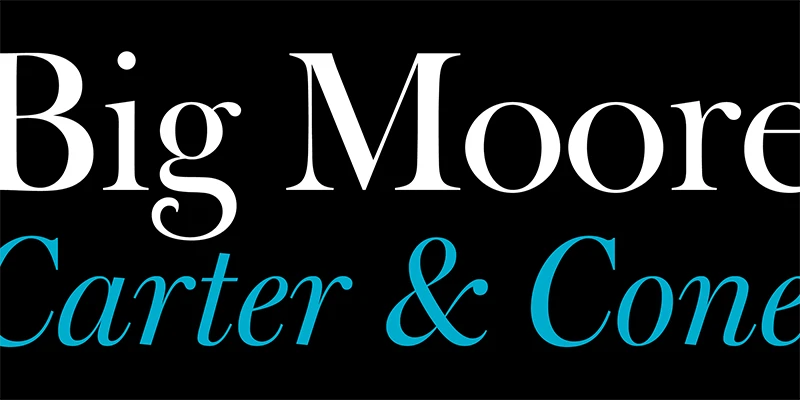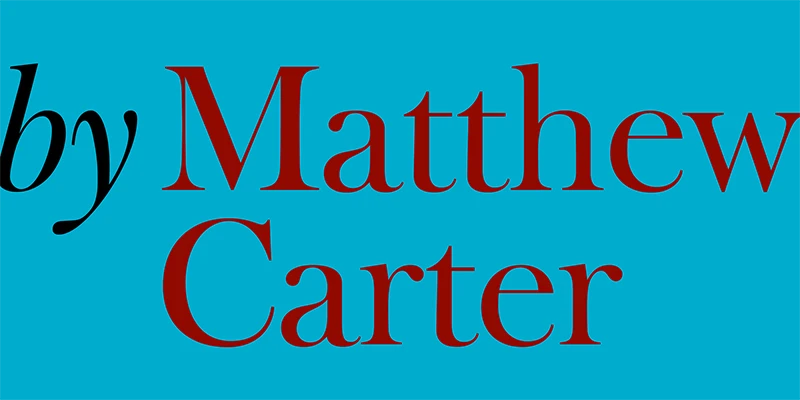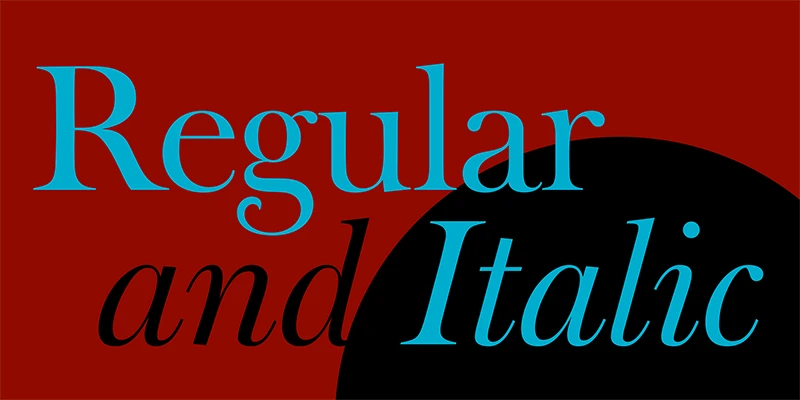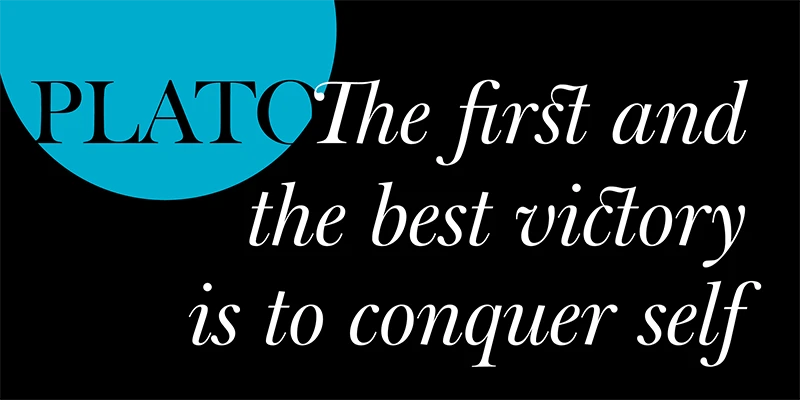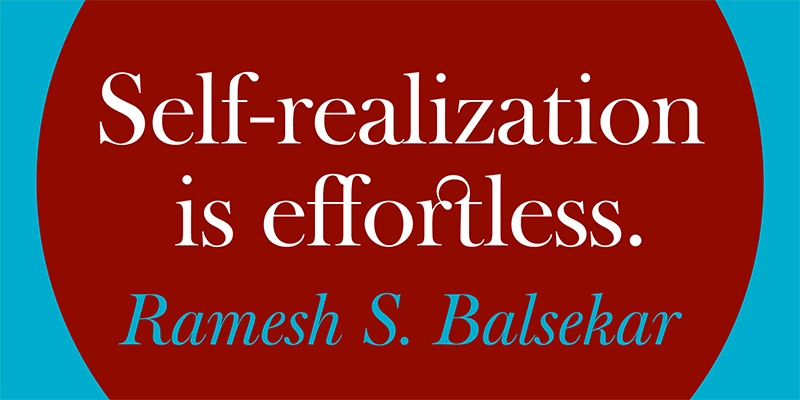
Big Moore
Carter & Cone’s Big Moore, like its cousin, Big Caslon, is a grand serif design. A 1766 specimen by Isaac Moore, former manager of Joseph Fry’s foundry in Bristol, England, shows many examples of type inspired by John Baskerville. But a century later, standardization had foisted inept lining figures and shortened descenders upon these designs. Matthew Carter remedied this tragedy with Big Moore by restoring oldstyle figures, full-length descenders, and historic swashes to this regal serif.